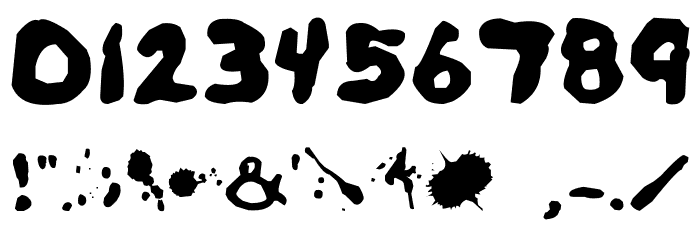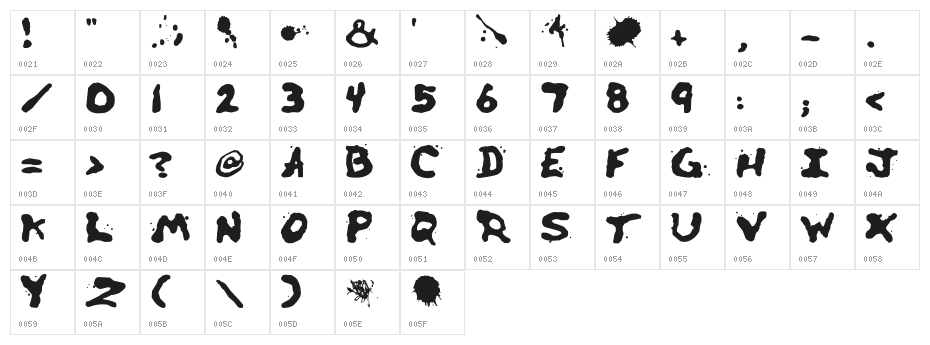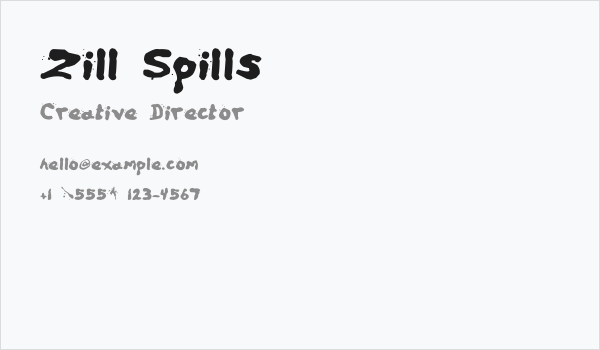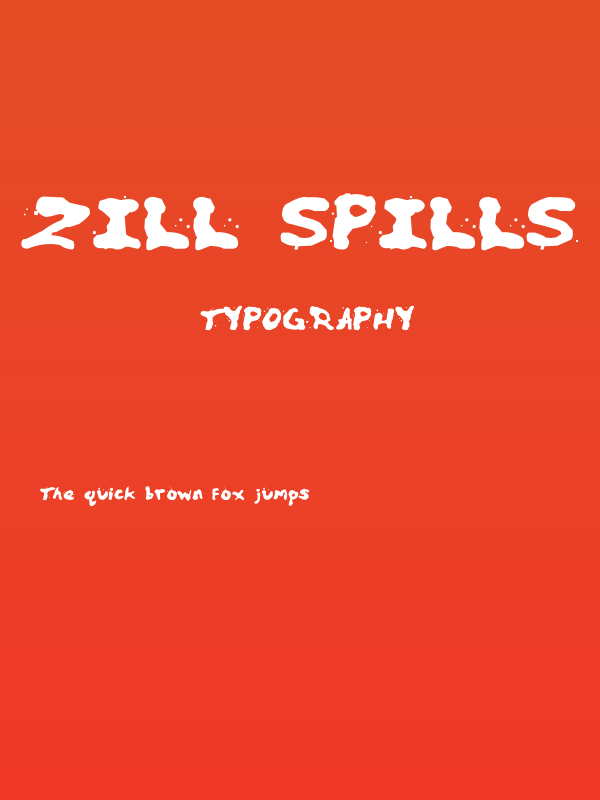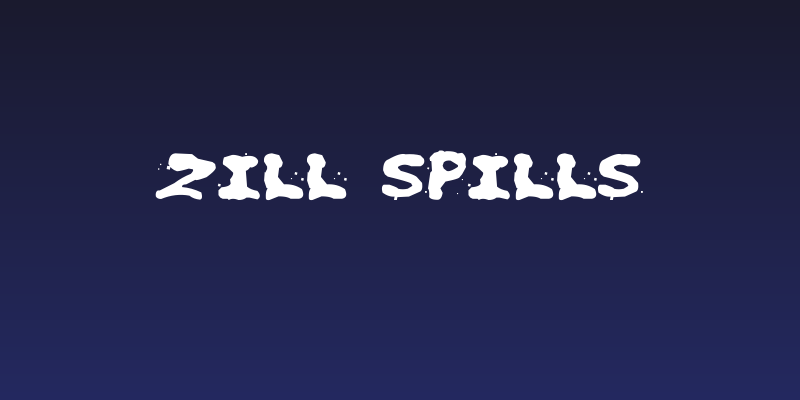
Zill Spills Font
Zill Spills Description
This font features a playful and artistic design, characterized by its irregular, splattered appearance reminiscent of ink blots or paint spills. The letters have a bold, organic feel with uneven edges and varying thickness, creating a dynamic and energetic look. The uppercase and lowercase letters maintain a consistent style, while the numbers and special characters add to the font's whimsical nature. Its unique style makes it stand out, perfect for creative projects that require a touch of spontaneity and artistic flair.
| Overall Style | Artistic, Playful |
| Use Case | Logos, Posters, Creative Titles |
| Proposed Projects | Ideal for art projects, creative posters, children's book covers, and any design needing a playful, artistic touch. |